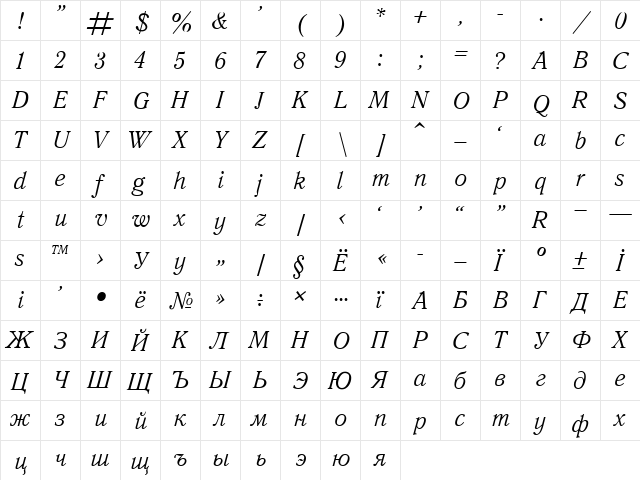
Quant Antiqua Italic
Design Context for Quant Antiqua Typeface
Quant Antiqua takes a measured approach to typography — its balanced proportions and neutral character make it a reliable workhorse for both digital and print work. The slanted form adds forward momentum and visual energy.